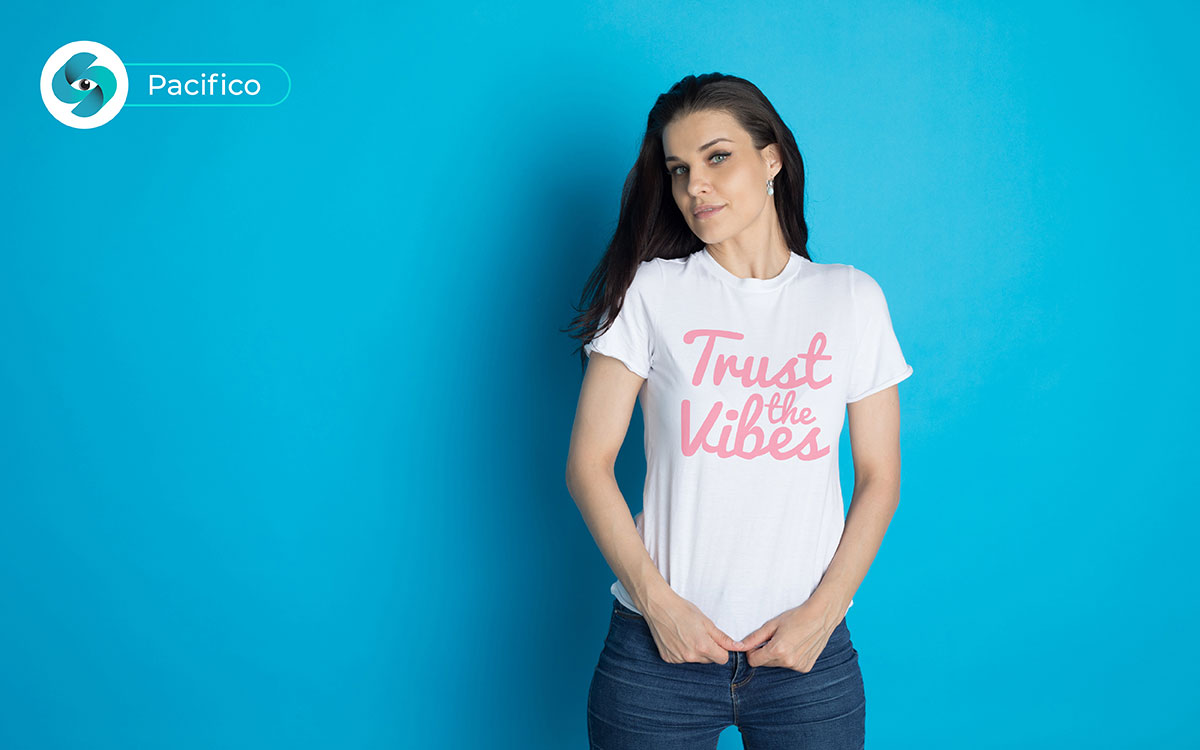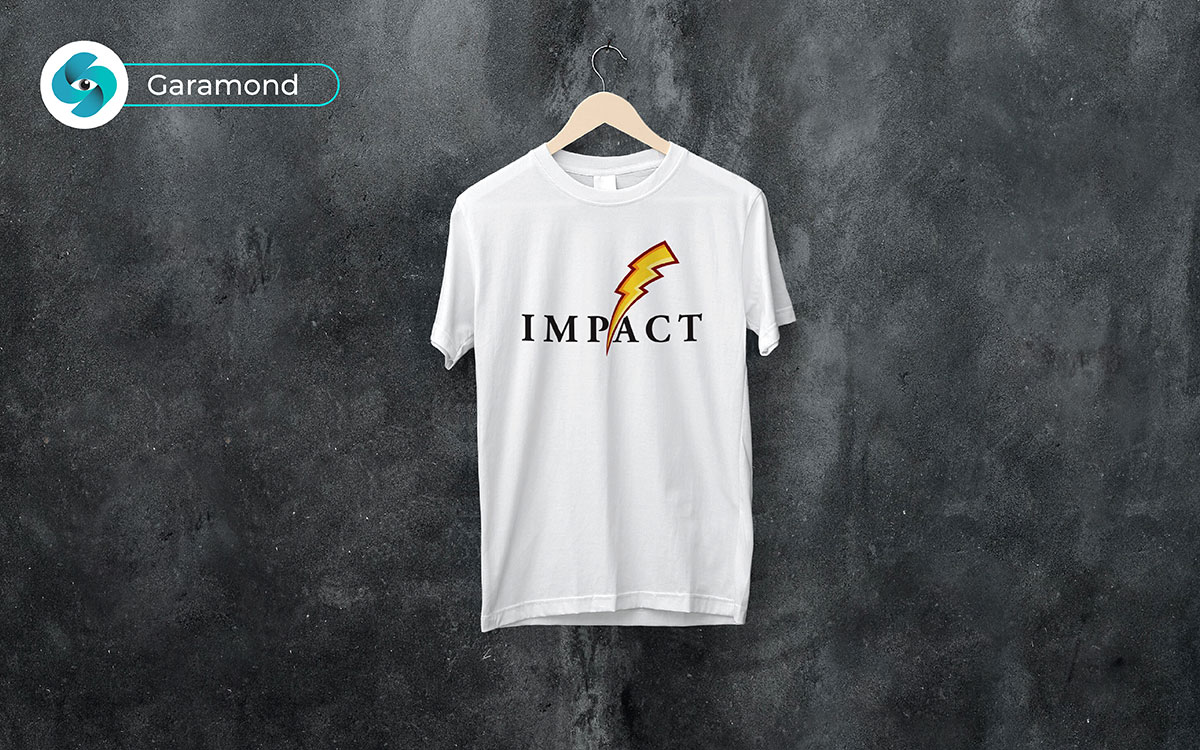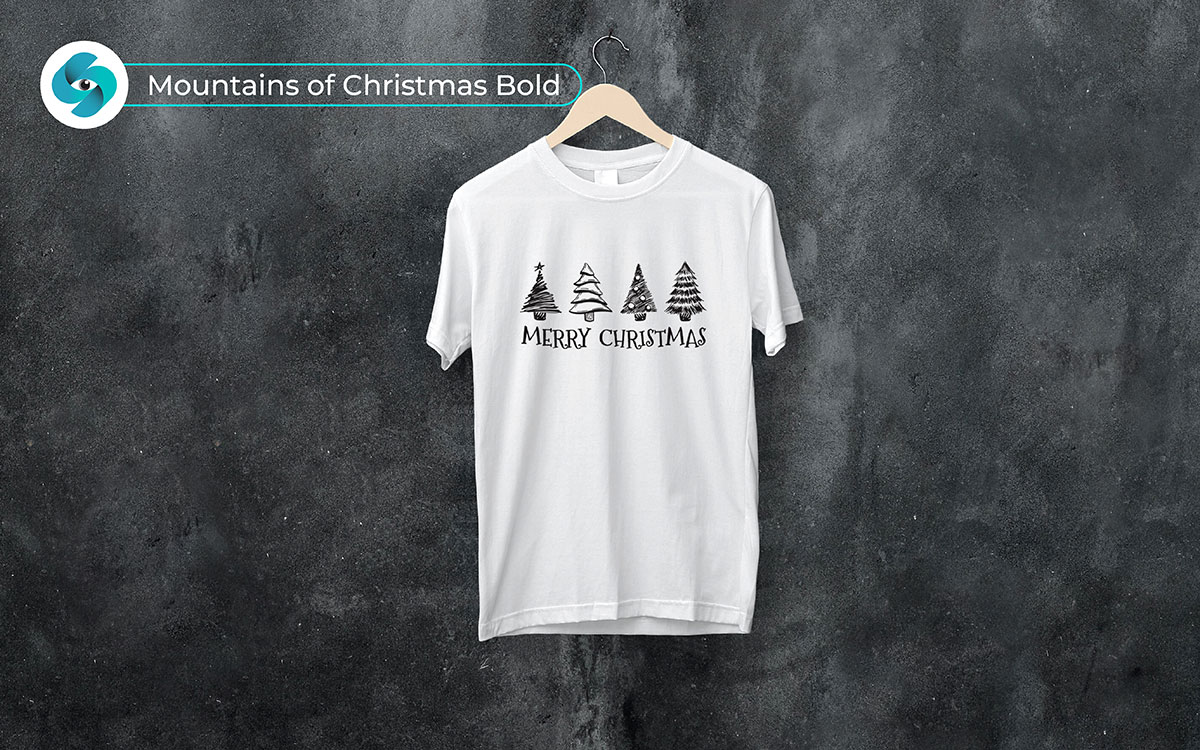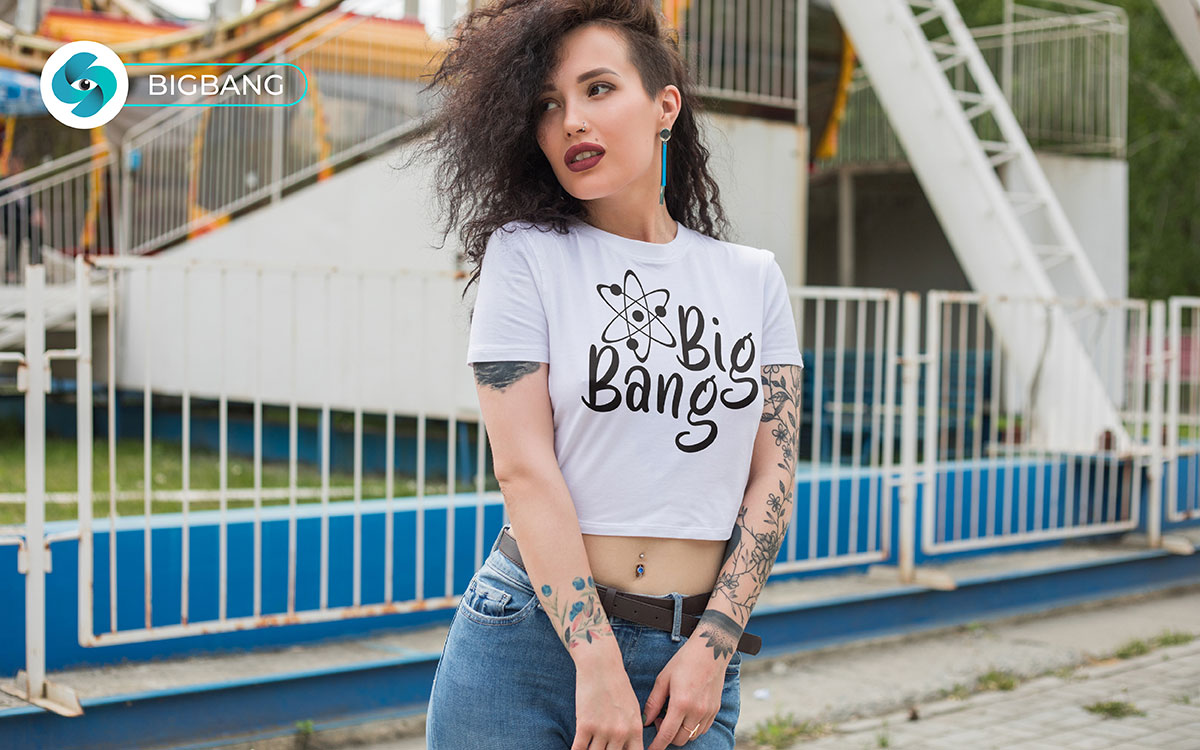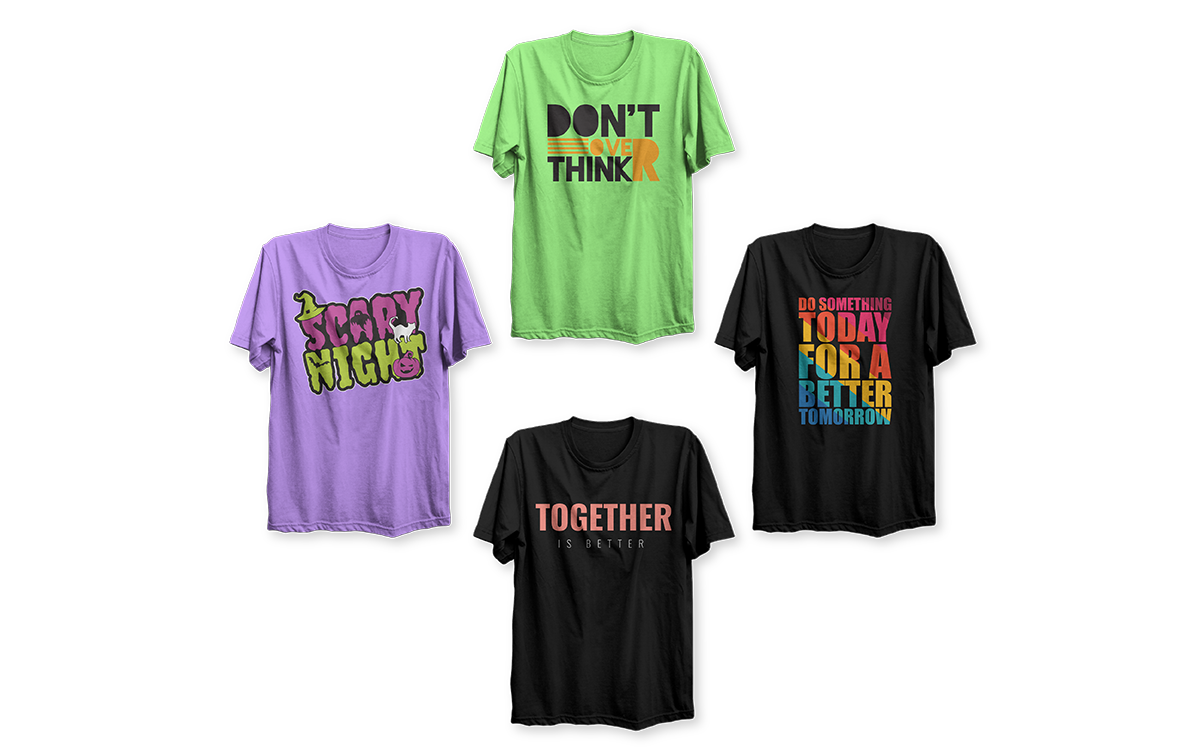
Choosing the best t-shirt fonts is your concern! Don’t worry. Think, t-shirts are like blank canvases that you can make stand out with the right font! But how do you evaluate the right as well as the best font? The best fonts for t-shirt design depend on some core things. These can be the tone or messages you want to convey to your customers and after all, the design's all-round aesthetic.
As a t-shirt business, you already know choosing the right font for your custom t-shirt can be not only an overwhelming task but also consumes brain sweat, too! Why not? There are 176 fonts, and finding out the best fonts among them for your t-shirt designs is a pretty tough task! But, you must pick popular, meaningful, and business-oriented eye-catching fonts to boost your t-shirt designs.
You know it— the t-shirt industry is overcrowded with many more top-class tales. But, you're feeling so alone with your own ideas to bring life to your business. Jumping into 2025, we've done a mega research to find the best set of fonts that'll be perfect to add something exciting vibe to your t-shirt designs.
Choosing the best and trendy fonts for your t-shirt business can say lots of words to your target customers about your t-shirt designs by keeping your mouth shut down. Yeah — the fonts you're going to pick for the best t-shirt designs really demand a cool discussion, right? Finally, here we are!
This blog will cover the best t-shirt fonts to improve your sales. So, aren't you excited to dive into the best fonts? If the answer is yes, no more words! Let's get started with today's discussion on the best fonts for t-shirts!
The fonts you choose stand out your t-shirt designs from the mess of the t-shirt industry. So, it's not like the gossip at your nearby t-stall where you share your creative t-shirt design ideas with your friends without thinking about what it brings at the end of the day. It's a matter of the heart of graphic design that makes your brand stand out from the millions.
Look, fonts are not like the words. They're more than words. Fonts—they have moods, personalities, and styles, too! So, try to feel the concept of choosing fonts in t-shirt designs with a heart, not mind! On the other side, your chosen fonts will have an impact on your target customer's mind!
Choosing the right fonts can set your brand's vibe and attract the right crowd you love to achieve. In 2025, we've run a long race to focus on the most successful t-shirt brands and do online research to choose the best t-shirt fonts that'll bring crazy sales in 2025! Finally, we have picked some essential and best fonts for t-shirt design that'll help you grow in the right way!
Our chosen fonts are stylish, creative, elegant, and have a uniqueness that can reach your designs to your target customer's heart. Let's get to know them!
Lobster is already at the peak of choice for t-shirt designs!
It's valiant, bold, and retro-inspired and integrates a blend of simplicity and elegance. Lobster has always had a lively charm to make any design stand out. The font comes out with versatile tones that can pair with bold colors, illustrations, and an eye-catching textured background with its distinctive intent. With its versatility, this Lobster font is a beloved one for designers to create welcoming and mind-blowing designs!
The Lobster font is a bit thick and comes with lyrical letterforms that can give you a taste of creativity and uniqueness. Indeed, the Lobster font is well-known for modern and vintage t-shirt designs!
Lobster Key Features:
Looking to get an elegant font with large letterforms?
Undoubtedly, Brice Bold can be the best choice for ideal t-shirt designs. Yes, the Brice Bold font comes with embellished letterforms. With the large letterform, you can convey a message of timeless delicacy and a positive vibe to your target audience.
If you're striving for the best font for vintage designs, Brice Bold will be the finest choice for you. This simple Brice Bold will be a perfect suit for simple and sharp typography t-shirt designs!
Brice Bold Key Features:
This simple font is well-known for its vintage-inspired aesthetic and elegant vibe. The Catalina Avalon family invented this elegant font! Yup, its versatile features combine classic style with a trendy style.
The font offers quirky letterforms that produce a harmonious aesthetic for bold and fantastic designs. Want to design a t-shirt with a catchy slogan? This Catalina Avalon Slab Bold font will be the best choice! Some simple fonts bring simplicity with elegance!
This Catalina Avalon Slab Bold is the perfect example of this. By using this font, create an amazing t-shirt design to surprise your audiences with amazement!
Catalina Avalon Slab Bold Key Features:
Looking for an impactful font that can grab anyone's attention in no time?